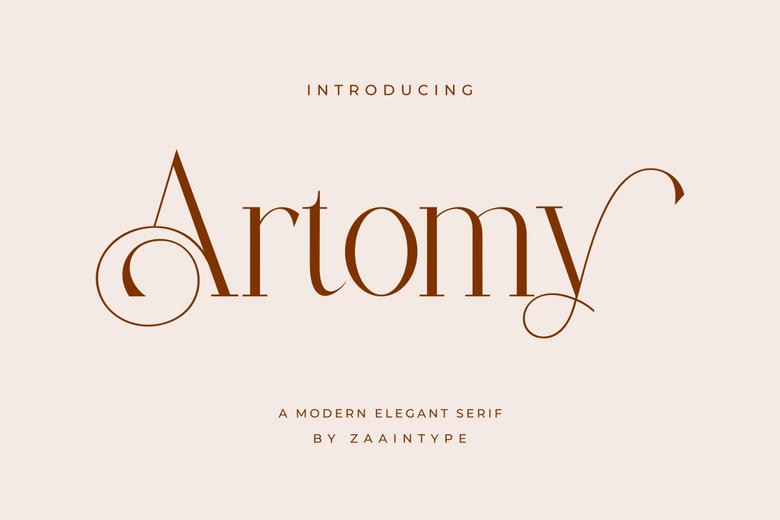
Welcome to Artomy font, an inventive typeface that is aimed at exuding modern and active character embedded in its identity. Artomy enchants with bare and clean cut, with stakes and corners it creates a trip toward utopian vision in perfection of avant-garde architecture.
Morality gives every character a touch of unevenness which provides additional depth and allows Artomy create the unique LoL’s appearance. Meet Artomy – the stunning logo and poster adjusting, innovational set of features ready to become a part of your project and boost its contemporary flair.